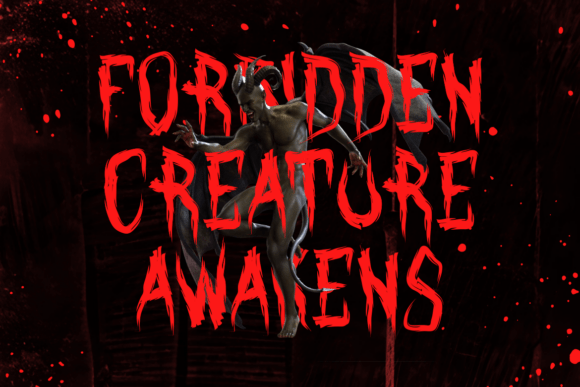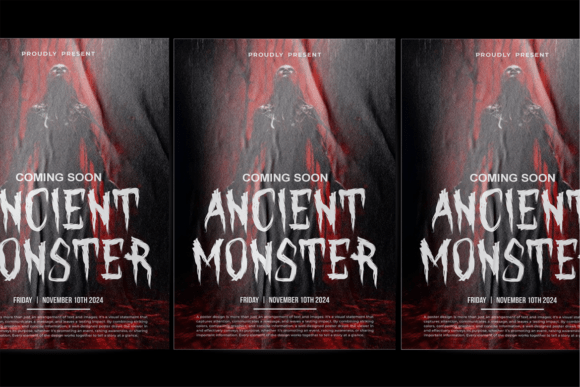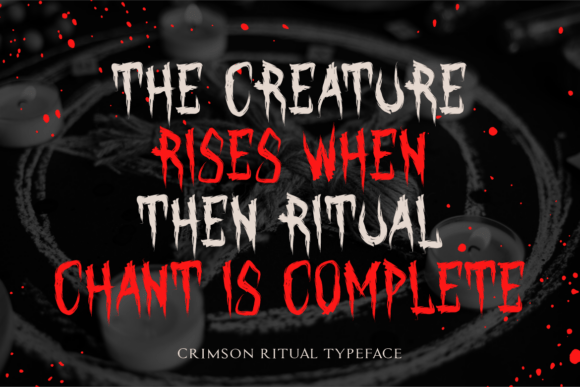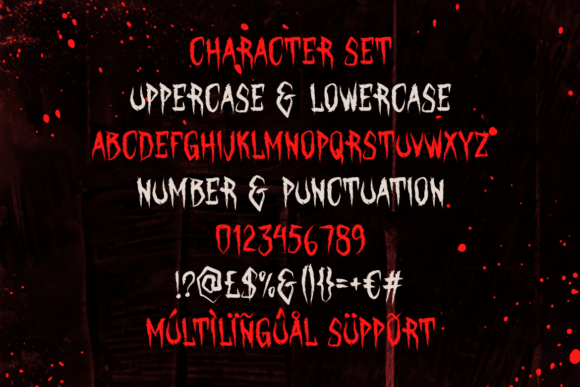
Unleash the Horror with Crimson Ritual Font: A Terrifying Typeface for Your Darkest Projects
Step into the shadows with Crimson Ritual, a terrifying horror-themed font designed to evoke unease and dread at first glance. This all-caps Crimson Ritual typeface is characterized by raw, thick strokes that terminate in sharp, ragged points, mimicking the look of blood smeared or dripped across a surface. The uneven baseline and deliberate imperfections give it a truly hand-painted, chilling aesthetic, setting it far apart from typical gothic or brush fonts.
The Inspiration Behind Crimson Ritual
Crimson Ritual’s design is inspired by the darker side of life, drawing from the realms of horror, the occult, and the supernatural. Each letter is meticulously crafted to resemble torn flesh and dripping ink, making it the perfect choice for horror titles, Halloween branding, occult posters, and everything eerie in between. The font’s jagged, blood-soaked strokes are designed to give your typography an unholy energy, perfect for designers and crafters looking to add a touch of macabre to their projects.
Key Features of Crimson Ritual Font
- All-caps design: Crimson Ritual is an all-caps font, ensuring that your text stands out with a bold, intimidating presence.
- Raw, thick strokes: The font’s thick strokes are reminiscent of blood smeared or dripped across a surface, adding to the overall horror aesthetic.
- Sharp, ragged points: The sharp, ragged points at the end of each stroke give the font a truly unsettling feel.
- Uneven baseline: The uneven baseline and deliberate imperfections give Crimson Ritual a hand-painted, chilling aesthetic.
- Jagged, blood-soaked strokes: The font’s jagged, blood-soaked strokes are meticulously crafted to resemble torn flesh and dripping ink.
Perfect for Horror and Occult Projects
Crimson Ritual is the perfect choice for designers and crafters working on horror-themed projects, including:
- Horror movie titles: Add a touch of terror to your movie titles with Crimson Ritual’s bone-chilling flair.
- Halloween branding: Create spooky and effective branding for Halloween with this terrifying font.
- Occult posters: Use Crimson Ritual to create eerie and unsettling posters for occult-themed events or products.
- Cursed sticker packs: Add a touch of supernatural charisma to your sticker packs with Crimson Ritual.
Tips for Using Crimson Ritual Font
To get the most out of Crimson Ritual, consider the following tips:
- Use it sparingly: Crimson Ritual’s bold, intimidating presence can be overwhelming if overused. Use it sparingly to create maximum impact.
- Pair it with contrasting fonts: Pair Crimson Ritual with contrasting fonts to create visual interest and add depth to your design.
- Experiment with colors: Experiment with different colors to find the perfect combination to enhance the font’s horror aesthetic.
Crimson Ritual is a terrifying horror-themed font that is sure to add a touch of unease and dread to any project. Its jagged, blood-soaked strokes and uneven baseline make it the perfect choice for designers and crafters working on horror-themed projects. With its bold, intimidating presence and supernatural charisma, Crimson Ritual is the perfect addition to any macabre project. So, step into the shadows and unleash the horror with Crimson Ritual font.